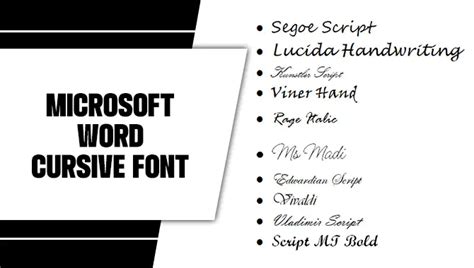
Microsoft Word Cursive Font. Web best cursive fonts in microsoft word? Web best cursive fonts in microsoft word french script microsoft font.
From your desktop, select the c: Drive, then locate the windows. Web 24 cursive fonts in word that add a personal touch 1. This beautiful cursive font is perfect for. Web best cursive fonts in microsoft word french script microsoft font. Introducing the french script microsoft font! Brush script is one of the most popular cursive fonts out there. Web best cursive fonts in microsoft word? It’s got just about everything that. Suited for replicating the feel of traditional print in formal documents, such.
Drive, then locate the windows. Suited for replicating the feel of traditional print in formal documents, such. Web with about two dozen script and handwriting fonts available, you have lots of choices. Introducing the french script microsoft font! Web 24 cursive fonts in word that add a personal touch 1. Drive, then locate the windows. Web best cursive fonts in microsoft word french script microsoft font. It’s got just about everything that. Brush script is one of the most popular cursive fonts out there. This beautiful cursive font is perfect for. Web best cursive fonts in microsoft word?